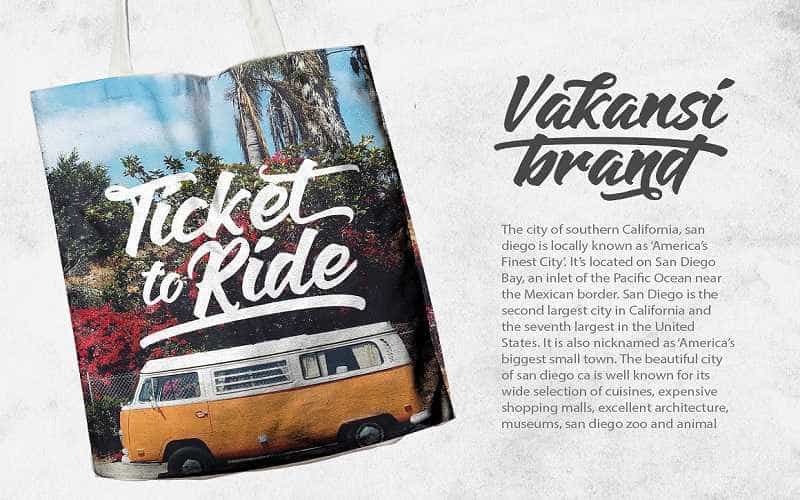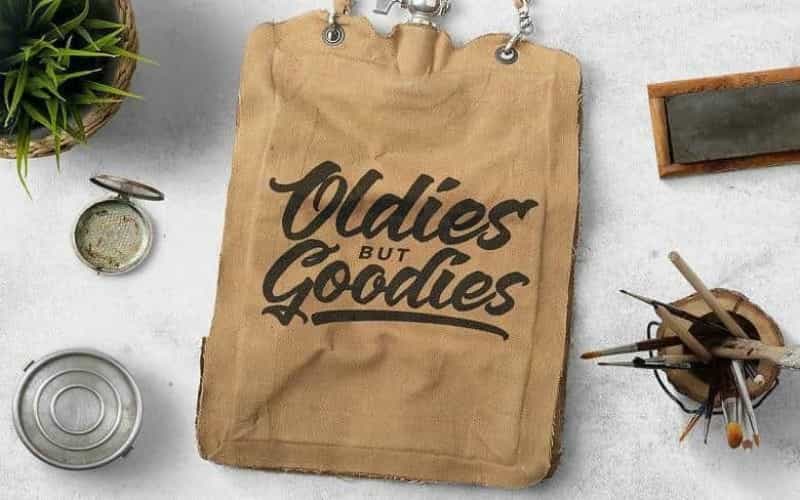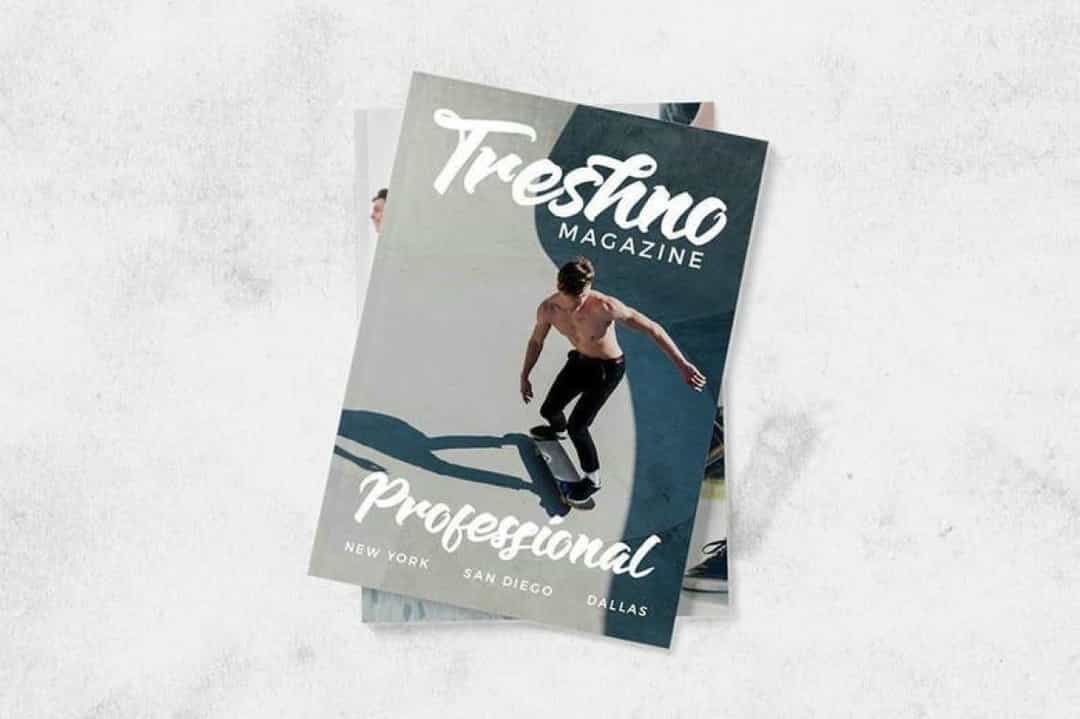
Discover Anthares Handbrush Font, part of the Brush Comic collection—a versatile and unique font perfect for adding a personal touch to your projects. Download it for free and enjoy crafting designs with style, from invitations to social media posts. This font is available exclusively for personal use, giving you the freedom to create without limits. Unlock your creativity with Anthares Handbrush Font today!
Anthares Font is the starting font of Wacaksara Co. A charming and exclusive handwriting script font has strong stroke variation and aura experience which enables users to generate fancy script type within no time. Anthares also offers uppercase numerals, lower case punctuation, opentype alternates, standard and discretionary ligatures, as well as swash characters. Some of the major areas where Anthares font is perfect for are Letterheads, Logotypes, Posters, Clothing Designs, and Labels.